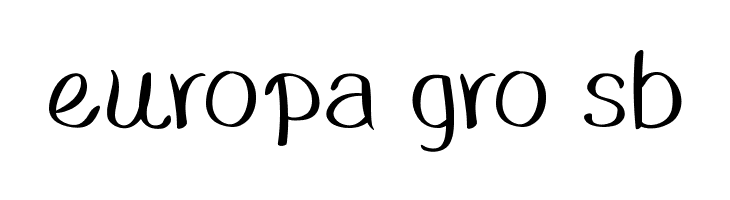
A bold, brush-style script font with dynamic, textured strokes.
A playful handwritten font with tall, narrow characters and whimsical elements.
A bold, framed font inspired by traditional Asian calligraphy with a modern twist.
A bold, geometric font inspired by traditional Asian calligraphy, enclosed in rectangular frames.
An elegant, flowing script font with graceful curves and a consistent slant.
A bold, calligraphic font with sharp, angular strokes and a dynamic style.
A bold, angular font with a modern, artistic edge.
A decorative dingbat set featuring traditional Asian motifs and symbols.
A bold, expressive handwritten font with a rough, textured style.